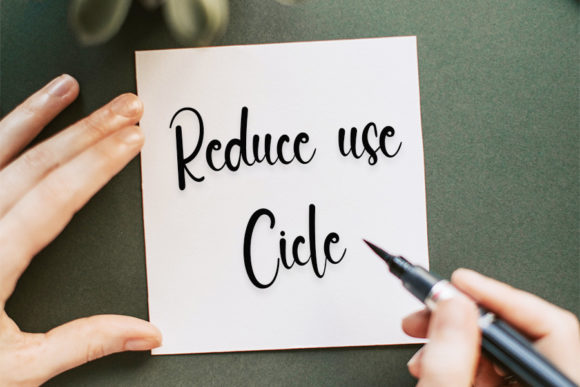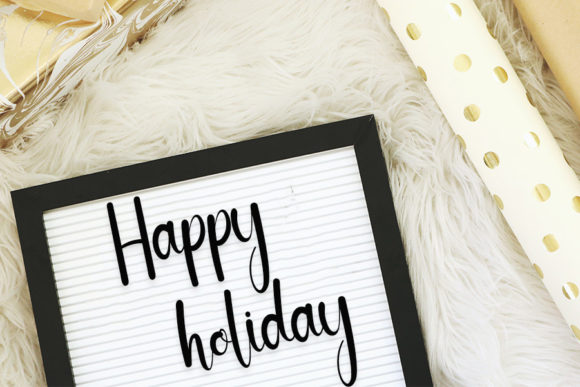
Galantic Font
db-ku.com - Script & Handwritten -- Galantic is a friendly handwritten font, carefully designed to become a true favorite. It maintains its classy calligraphic influences while feeling contemporary and fresh.